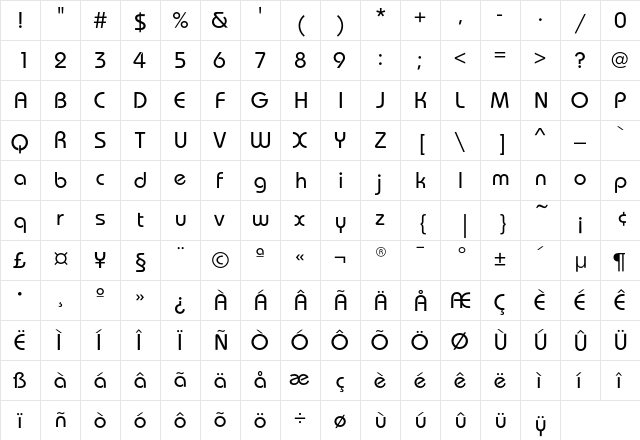
BauhausEF-Medium Regular
Design Context for BauhausEF-Medium Typeface
BauhausEF-Medium is a composed and adaptable typeface that performs quietly and consistently across a wide range of design contexts.